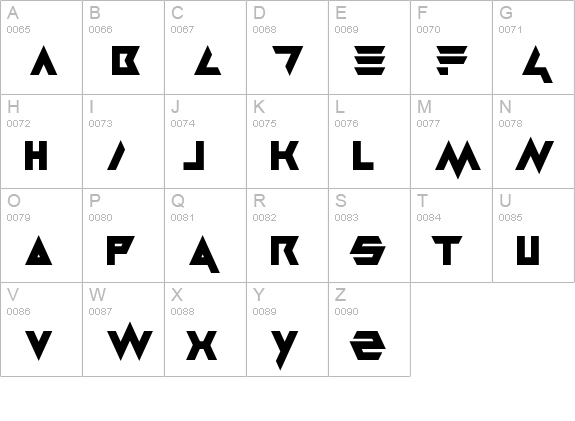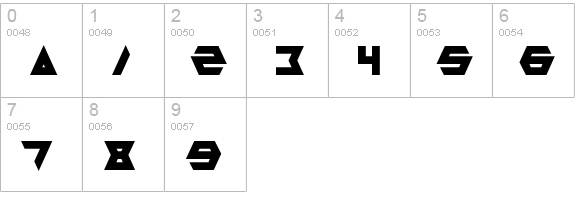
Introducing Masterblast, a font that will blow your mind with its explosive energy and captivating style. This font is the perfect weapon to make your designs stand out from the crowd and leave a lasting impression. With its bold and dynamic letterforms, Masterblast commands attention and exudes a sense of power and strength. But what sets Masterblast apart is that it not only delivers a visually stunning experience but also offers the incredible advantage of being free. Yes, you read that right – this incredible font is freely available to download at FontsMarket.com, making it accessible to all designers and creatives looking to add a touch of dynamism to their projects without breaking the bank. Whether you're working on a poster, logo, or any other creative endeavor, Masterblast will elevate your design to new heights. Its versatility allows it to adapt to various styles and themes, effortlessly conveying a sense of excitement and impact. From action-packed movie titles to edgy apparel branding, this font has the power to transform your vision into a visual masterpiece. The attention to detail in Masterblast is truly commendable. Each letter is meticulously crafted, capturing the essence of explosive energy and unleashing it onto the page. The carefully chosen weights and proportions ensure legibility without compromising on the font's inherent character. So, don't miss out on this incredible opportunity to unleash the power of Masterblast in your designs. Download this font for free at FontsMarket.com and let your creativity explode with unlimited possibilities. Prepare to amaze and astound your audience with the sheer force and impact of Masterblast – a font that will leave a lasting impression on anyone who encounters it.